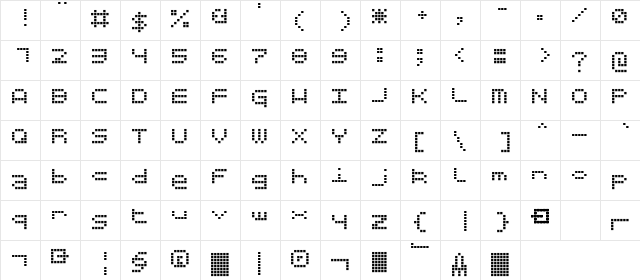
ticker Regular Font Preview
ticker Regular
Design Context for ticker Typeface
ticker is a composed and adaptable typeface that performs quietly and consistently across a wide range of design contexts.